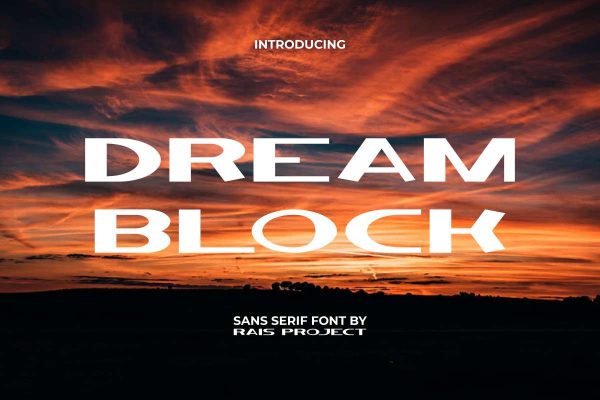
Dream Block Display Font
Dream Block Font is a futuristic display font designed by RaisProject. The style of this font is timeless and is still the favorite choice of many people. Use this font right away and see how cool it is!
Dream Block Font is a futuristic stylish display font.This font has a large size so that it immediately catches attention and is clearly visible from a distance! It will be good for any designs, such as brand image, cover, custom design, greeting card, invitation, label, menu, poster, product packaging, quote, signage, web, and more! You can see the demo font below, input any word you want so you can see what it looks like: